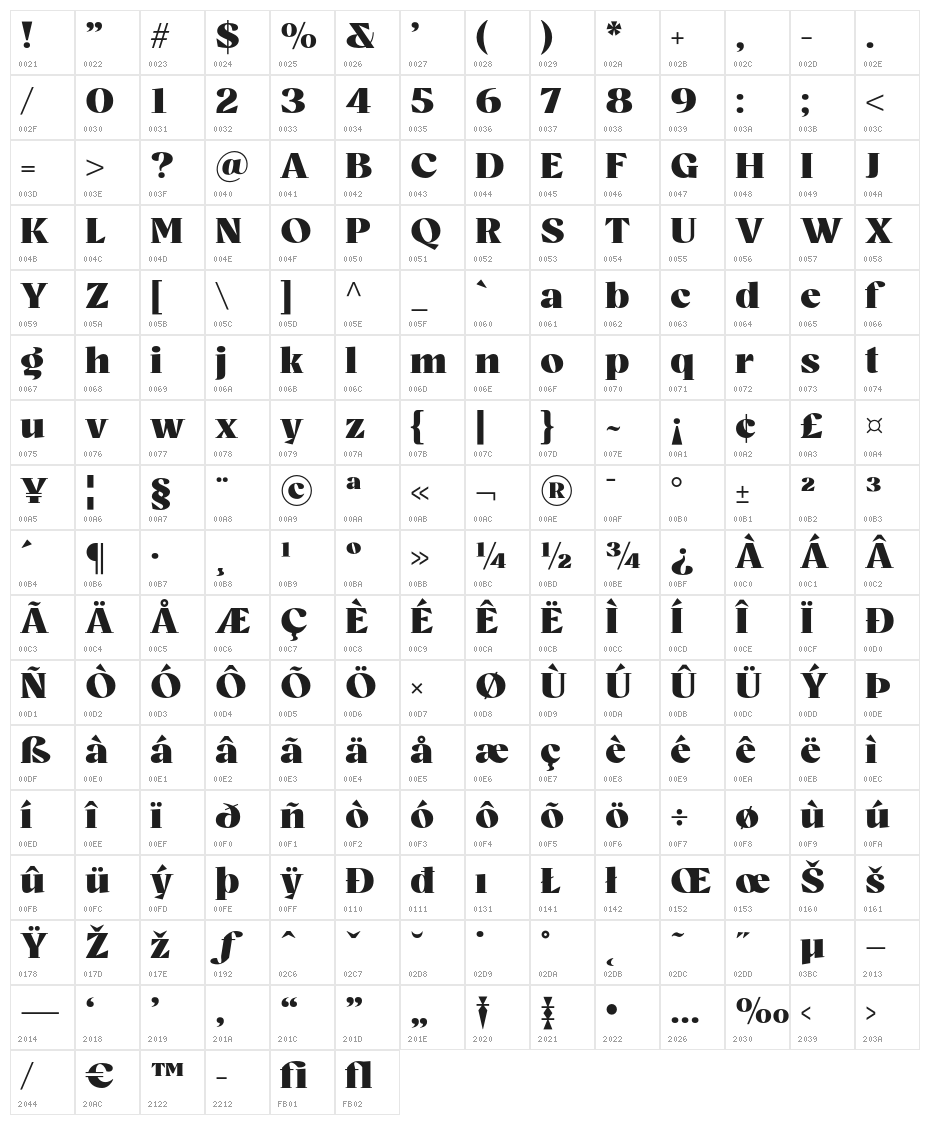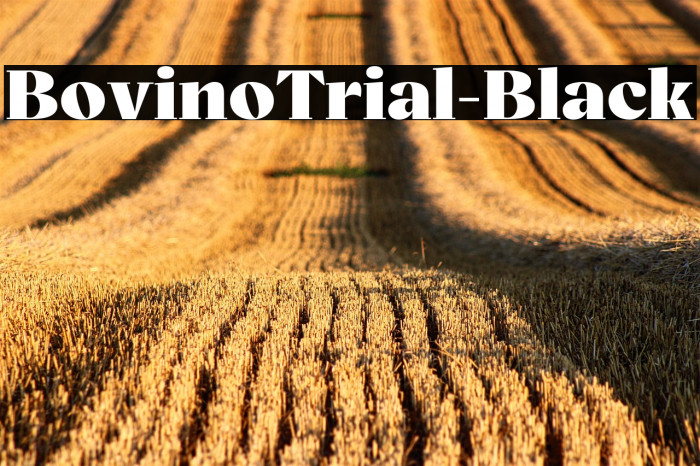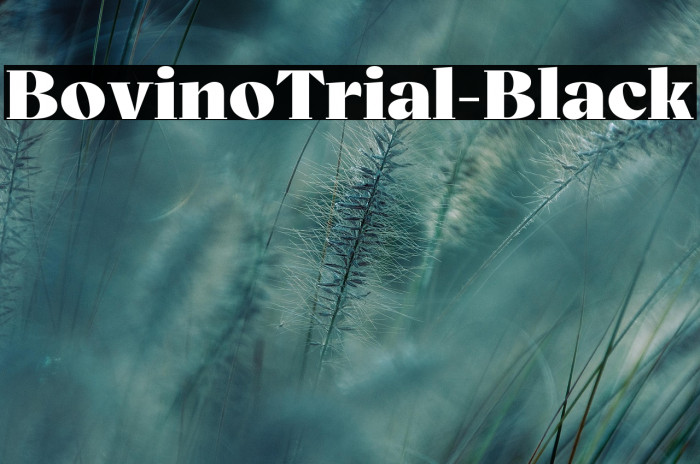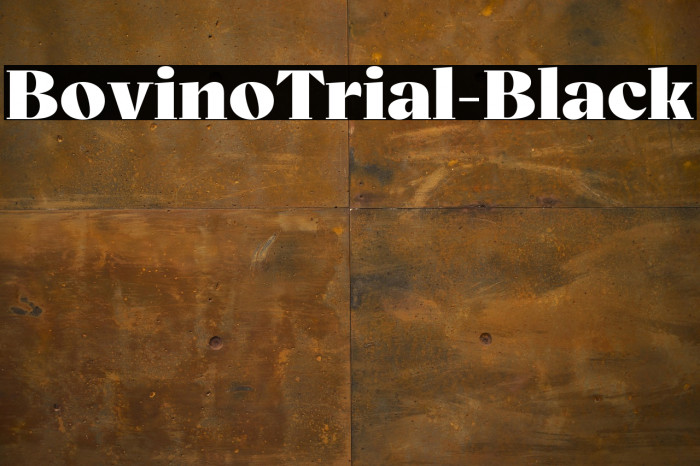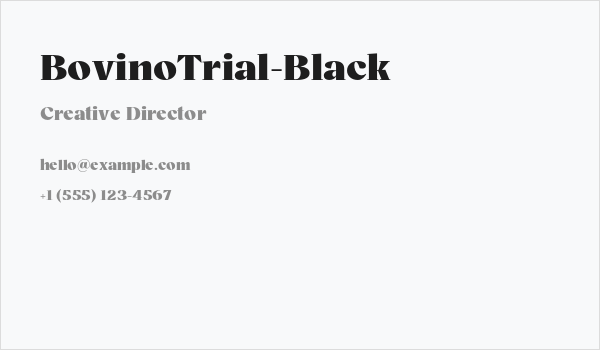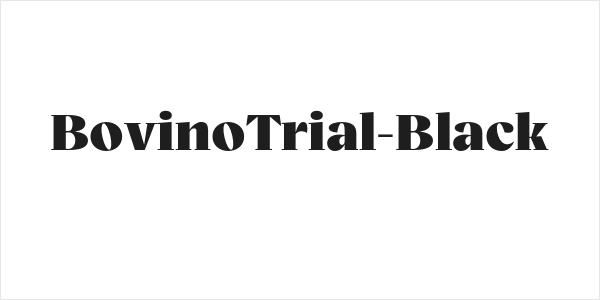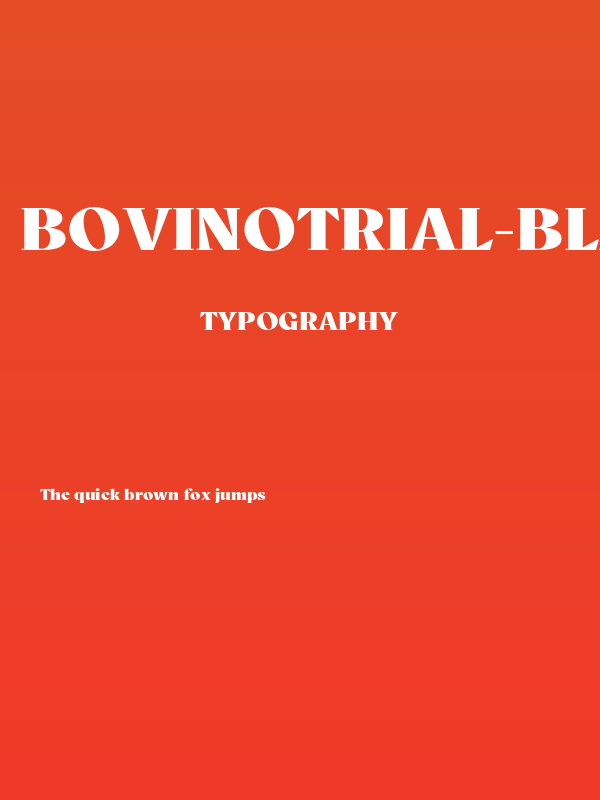
BovinoTrial-Black Font
BovinoTrial-Black Description
This font features a bold and commanding presence with thick, strong strokes that convey a sense of authority and confidence. The characters are well-defined with sharp serifs, giving it a classic yet modern appeal. The uppercase letters are particularly striking, with a robust and solid appearance, while the lowercase letters maintain a consistent weight and style. The numerals are equally bold, ensuring readability and impact. Special characters are designed with the same attention to detail, making them stand out. This font is perfect for making a statement in any design project.
| Proposed Projects | Ideal for headlines, branding, posters, and any project that requires a strong visual impact. |